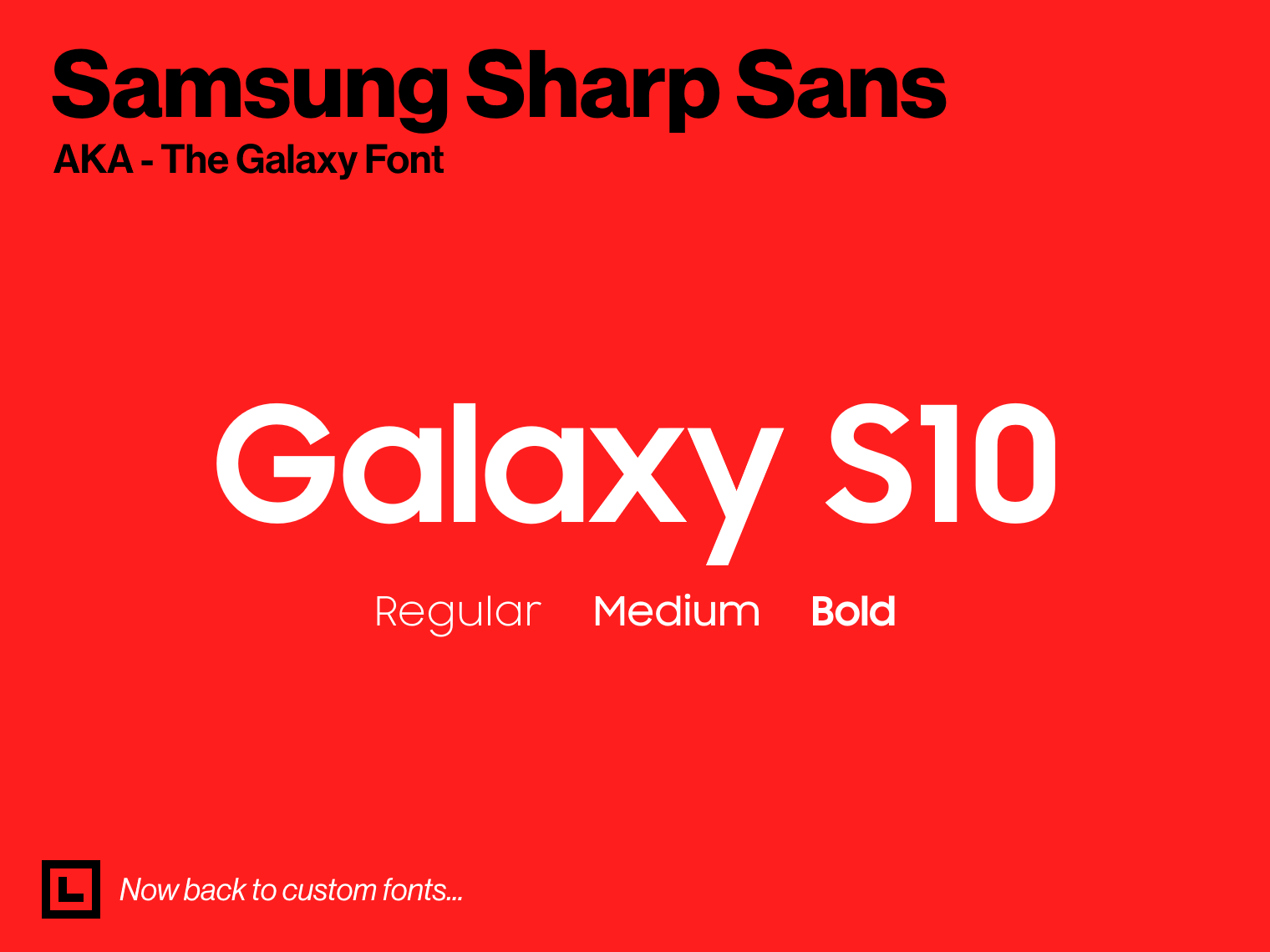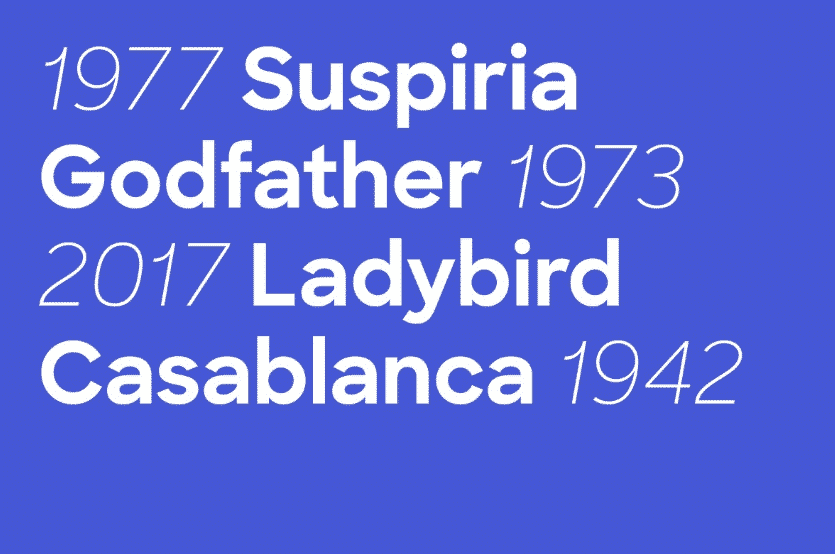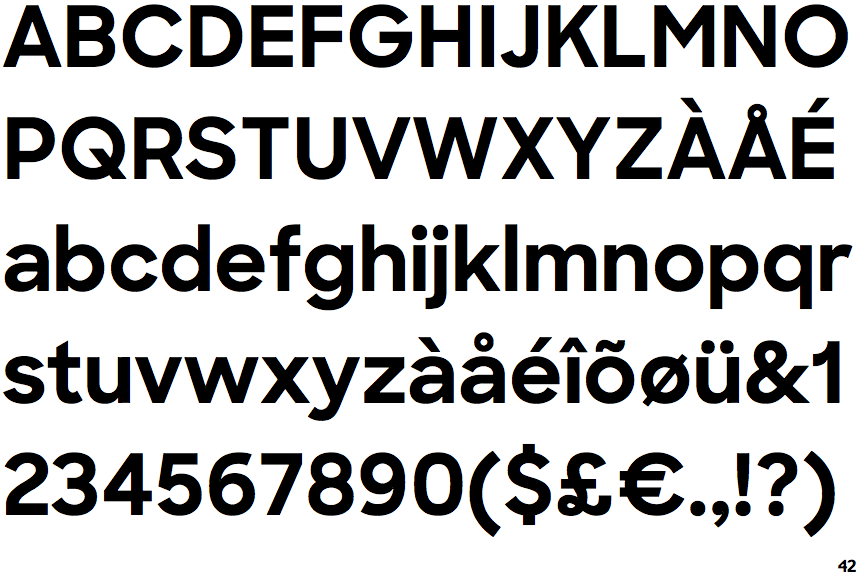
Sharp Sans Font Vk
Sharp sans font vk. As the original ogg typeface has taken on a life of its own out in the world, we exercised extreme caution with this update, often opting to leave in small “mistakes” we ran into for the sake of fidelity. In typographic terms, serifs are the small strokes or extensions at the end of a longer stroke, such as the leg of a “k” or “r.”. Free version of dx rigraf includes semibold weight with matched italic.
Its distinctive character and many variables make it a versatile, stylish workhorse, great for interfaces and design. While the original display versions complement the new sharp sans beautifully when used in tandem, the choice to use one or the other at an appropriately large point size is. Follow instructions below and receive trial fonts of our entire retail library.
A sans serif font is, as the name implies, a font without serifs. Sharp type trial fonts are available for anyone who wishes to install our typefaces for testing purposes. The relentlessly geometric sharp sans display no.
Onlinewebfonts.com is internet most popular font online download website,offers more than 8,000,000 desktop and web font products for you to preview and download. The family is available in a massive collection of 21 widths and seven weights, most with italics, for a total of 249 fonts. Sharp sans is understated in its perfectionism, and warm in its neutrality.
The first versions of the family date back to 2009. There are several styles of sans serif fonts, including geometric sans serifs like futura, humanist sans serifs like. Body text, sans, monoline, optical sizes.
It is a “contemporary interpretation of the naskh style with a rational and flexible design”. The sharp sans series is divided into three parts, sharp sans display no.1, and sharp sans display no.2. While most superfamilies are organized by a single differentiating principal between optical size (text, display, etc.), or style (serif, sans, slab, etc.), each family in the sharp sans series contain elements of both.